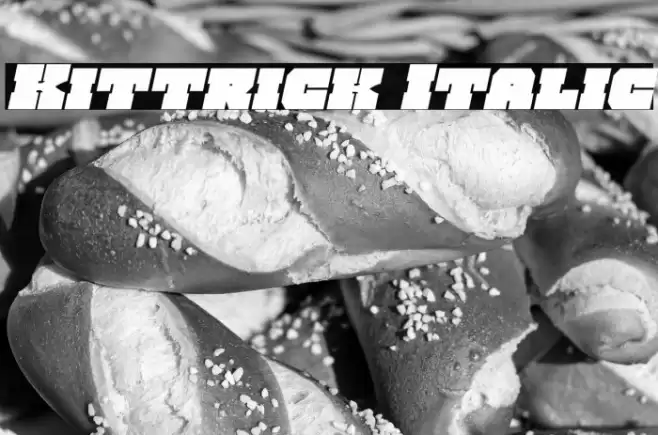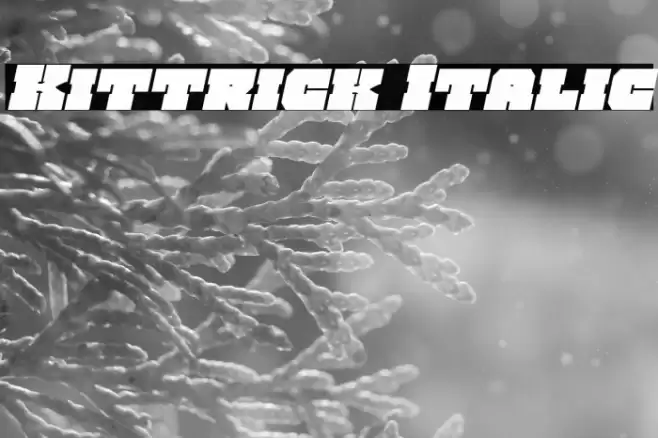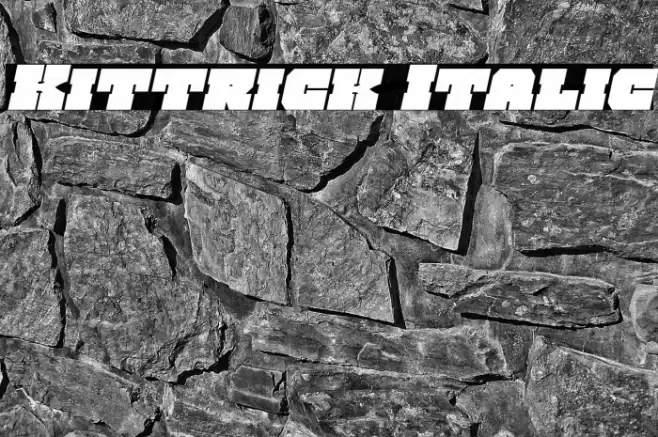
Kittrick Italic Font
Kittrick Italic Description
This font features a bold and dynamic style with a strong geometric influence. The characters are heavily stylized with sharp angles and a blocky appearance, giving it a futuristic and industrial feel. The uppercase and lowercase letters maintain a consistent weight, contributing to a uniform look across the typeface. The numbers and special characters are equally bold, ensuring they stand out in any design. The italic slant adds a sense of motion and urgency, making it suitable for attention-grabbing headlines or impactful logos.
A bold, geometric font with an italic slant, perfect for futuristic designs from Uncategorized fonts.